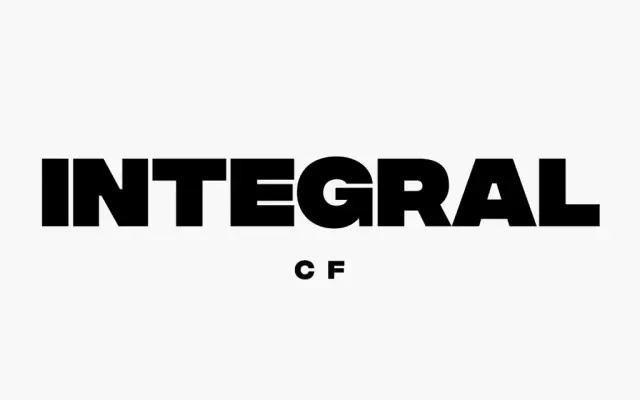
Integral CF
A six-weight geometric sans built for display use, running from Regular to Heavy with matching obliques across 12 styles.
Straight-lined and confident in construction, it is aimed at posters, social media graphics, headlines and large-format print where visual weight matters. The foundry notes a streak of character beneath the corporate geometry, suggesting it sits between pure utility and personality. Language support spans a broad range of Latin-based European languages including French, German, Spanish and Turkish.
Integral CF uses straight lines and angular geometry with a corporate, display-oriented construction typical of geometric sans-serif typefaces, designed for impact at large sizes.